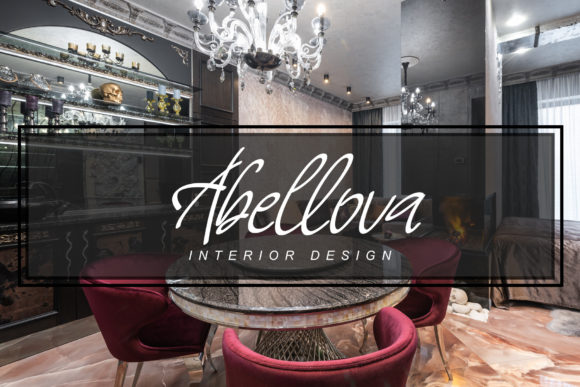
The Ultimate Guide to Break Harley Font: Elevate Your Designs with This Timeless Handwritten Font
I’ll never forget the time I was working on a logo design project for a boutique client, and I was stuck on finding the perfect font. The client wanted something that was both elegant and playful, but I just couldn’t seem to find a font that fit the bill. That was until I stumbled upon Break Harley Font. ✨ This dazzling and timeless handwritten font has been a game-changer for my designs, and I’m excited to share its awesomeness with you!
Break Harley Font: A Personal Review
So, what makes Break Harley Font so special? Here are some things I love about this font:
• ✨ Unique and eye-catching design: Break Harley Font has a distinctive, hand-crafted feel that’s perfect for creating logos, branding, and quotes that stand out.
• ✅ PUA encoded for easy access: This font is PUA encoded, which means you can easily access all the glyphs and swashes without any hassle.
• 💫 Highly versatile: Break Harley Font can be used for a wide range of design projects, from elegant wedding invitations to bold marketing materials.
• ⚠️ Limited kerning options: Some users may find that the kerning options are limited, which can make it tricky to get the perfect spacing.
• 🤔 Not suitable for body text: Due to its decorative nature, Break Harley Font is best used for headlines and titles rather than body text.
The Story Behind Break Harley Font
Break Harley Font was designed with the intention of creating a timeless, elegant handwritten font that would be perfect for a wide range of design projects. The designer aimed to create a font that was both beautiful and versatile, with a unique character that would make it stand out from other fonts. 💫
What is Break Harley Font? Break Harley Font is a dazzling and timeless handwritten font, perfect for creating eye-catching logos, branding, and quotes.
Is Break Harley Font PUA encoded? Yes, Break Harley Font is PUA encoded, making it easy to access all the glyphs and swashes.
What type of designs is Break Harley Font best suited for? Break Harley Font is perfect for creating elegant logos, branding, and quotes, as well as other design projects that require a touch of elegance and sophistication.